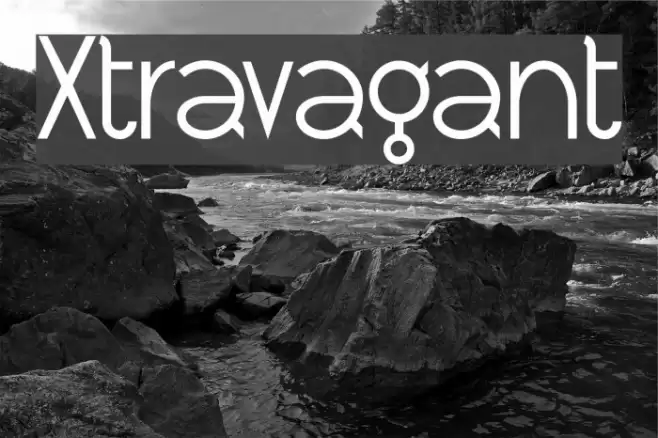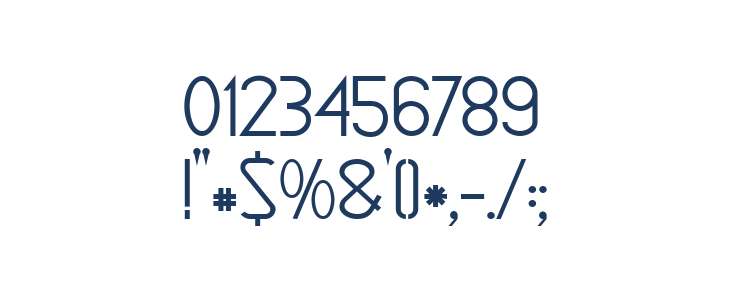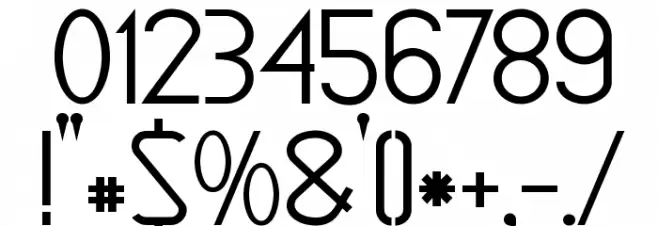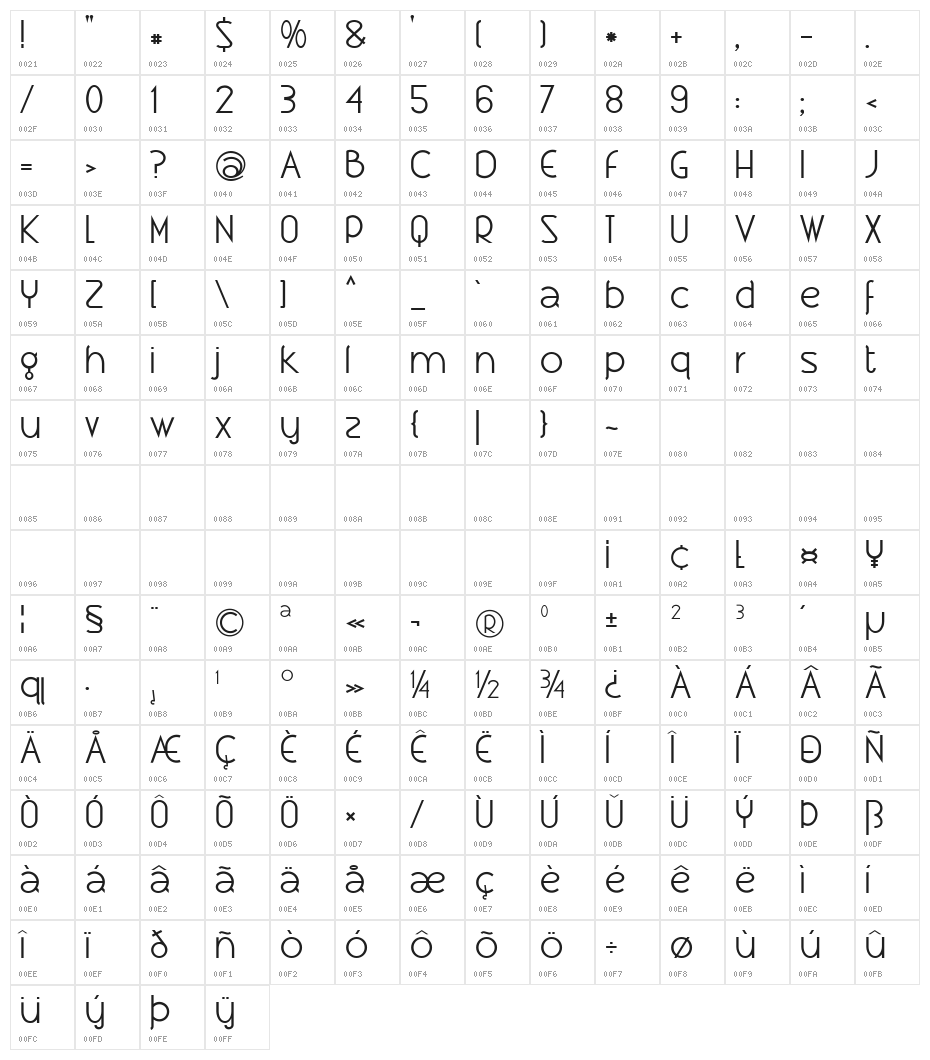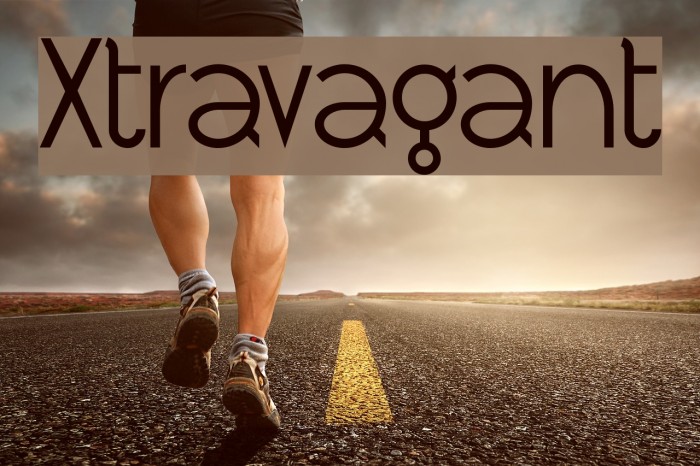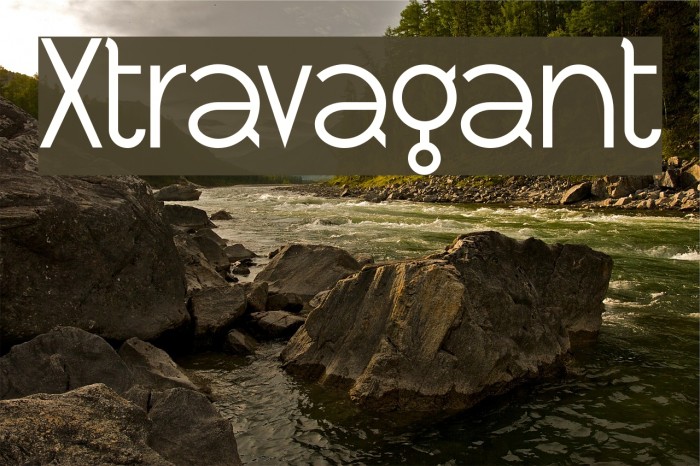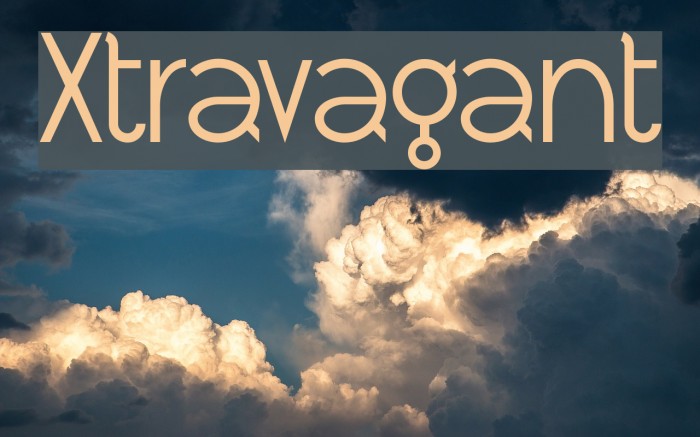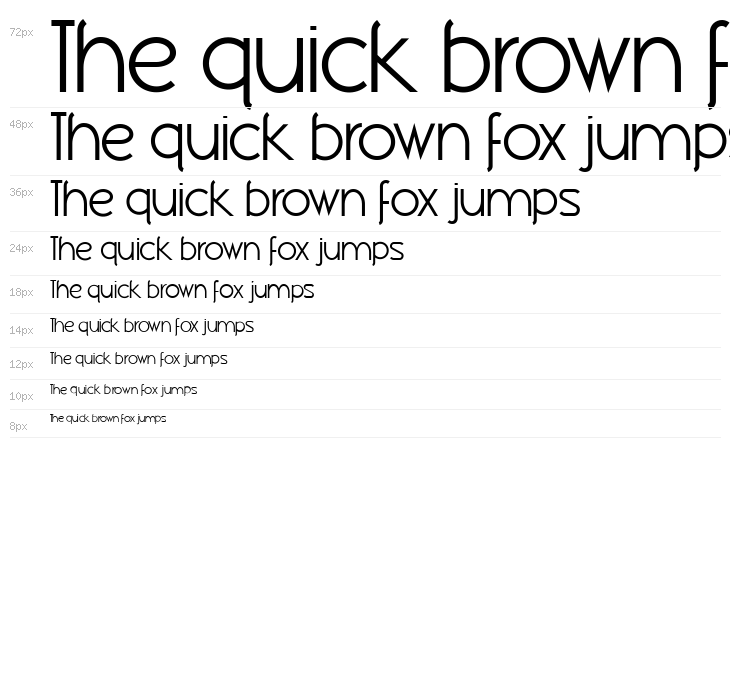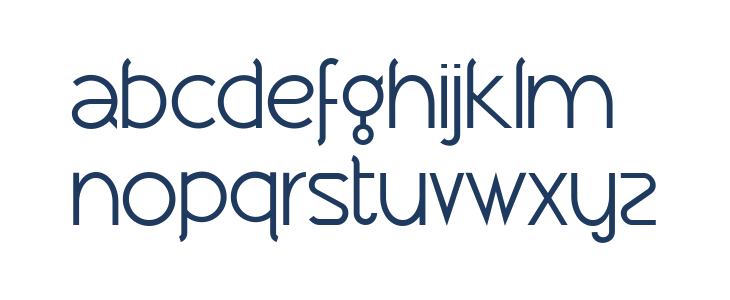
Xtravagant Font
Xtravagant Description
This font features a modern and sleek design with clean, geometric lines and a minimalist aesthetic. The uppercase letters are tall and narrow, giving a sense of elegance and sophistication. The lowercase letters maintain a consistent style with rounded edges, adding a touch of softness to the overall appearance. The numerals are clear and easy to read, matching the style of the alphabet. Special characters are designed with the same attention to detail, ensuring a cohesive look across all elements. This font is versatile, suitable for a variety of design projects that require a contemporary and stylish touch.
A modern, geometric font with clean lines and a minimalist style from Uncategorized fonts.
- Proposed Projects: Ideal for branding, advertising, digital media, and editorial design.
- Use Case: Headlines, Logos, Digital Media